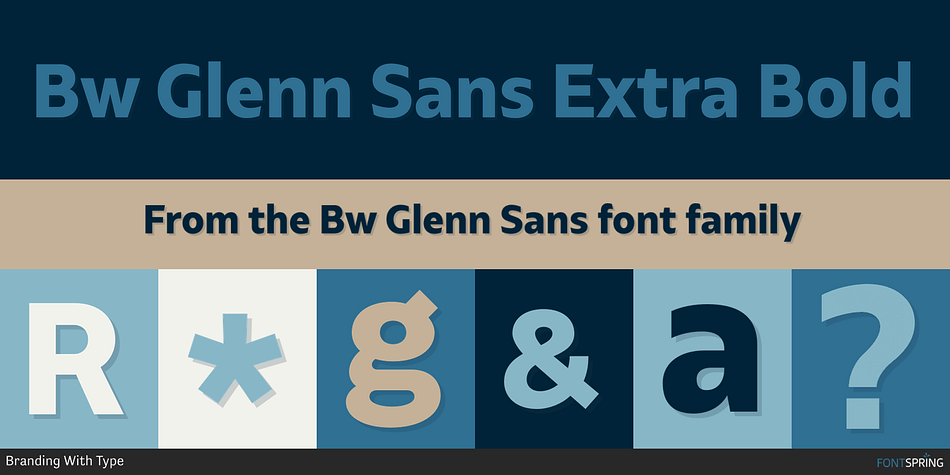
Bw Glenn Sans Extra Bold
Designed by Alberto Romanos, Bw Glenn Sans is a sans serif font family. This typeface has sixteen styles and was published by Branding With Type.
Bw Glenn Sans is the result of mixing a grotesque skeleton with traits of the British sans serif tradition.
Bw Glenn Sans is the result of mixing a grotesque skeleton with traits of the British sans serif tradition. The result is a modern and clean sans serif family that speaks with clarity and authority. Its contained width makes it a favourite for long texts while its distinctive details come to life when used as display.
It’s also the grotesque companion of Bw Glenn Slab. They’re the perfect complement for each other, sharing x-height and modulation as both font families were developed in parallel.
Designed by Alberto Romanos, Bw Glenn Sans comes available in 8 weights from Hairline to Black with matching italics, tabular and old style figures, case sensitive forms and many other OpenType features. Bw Glenn Sans supports Extended Latin, providing designers worldwide with a rich functional palette with that extra bit of personality.